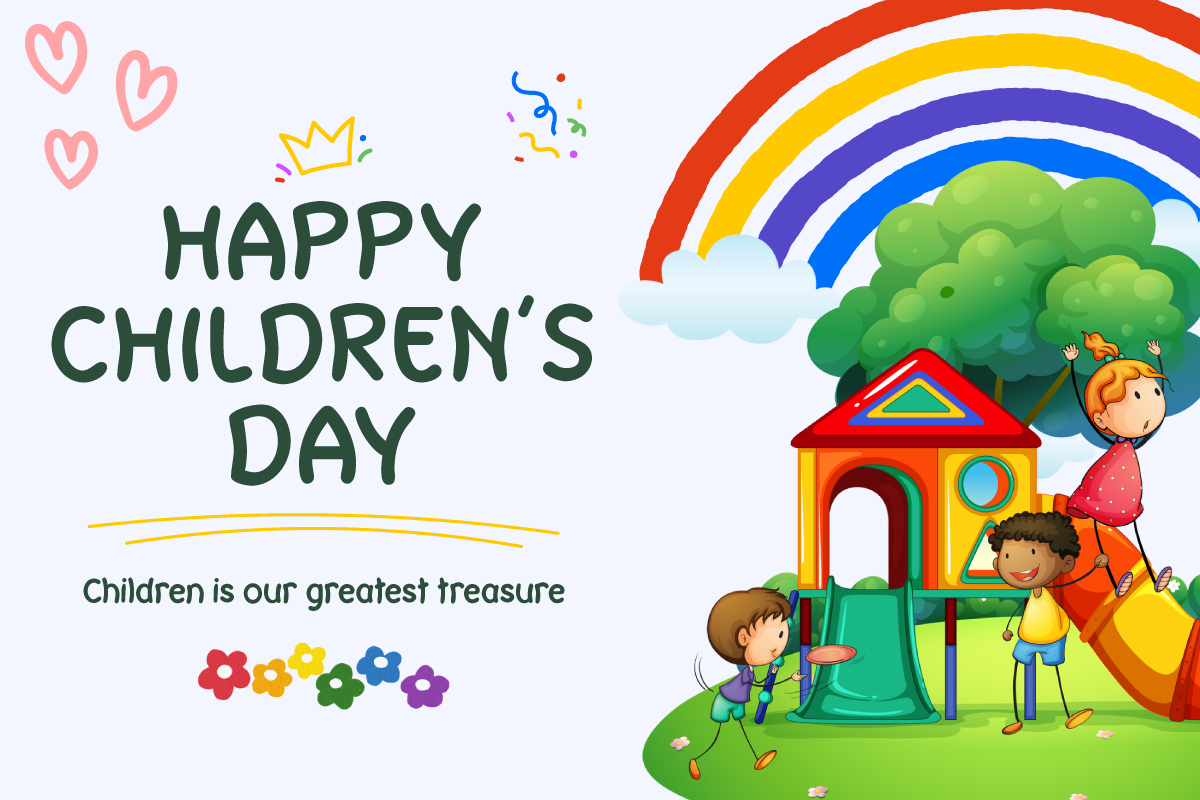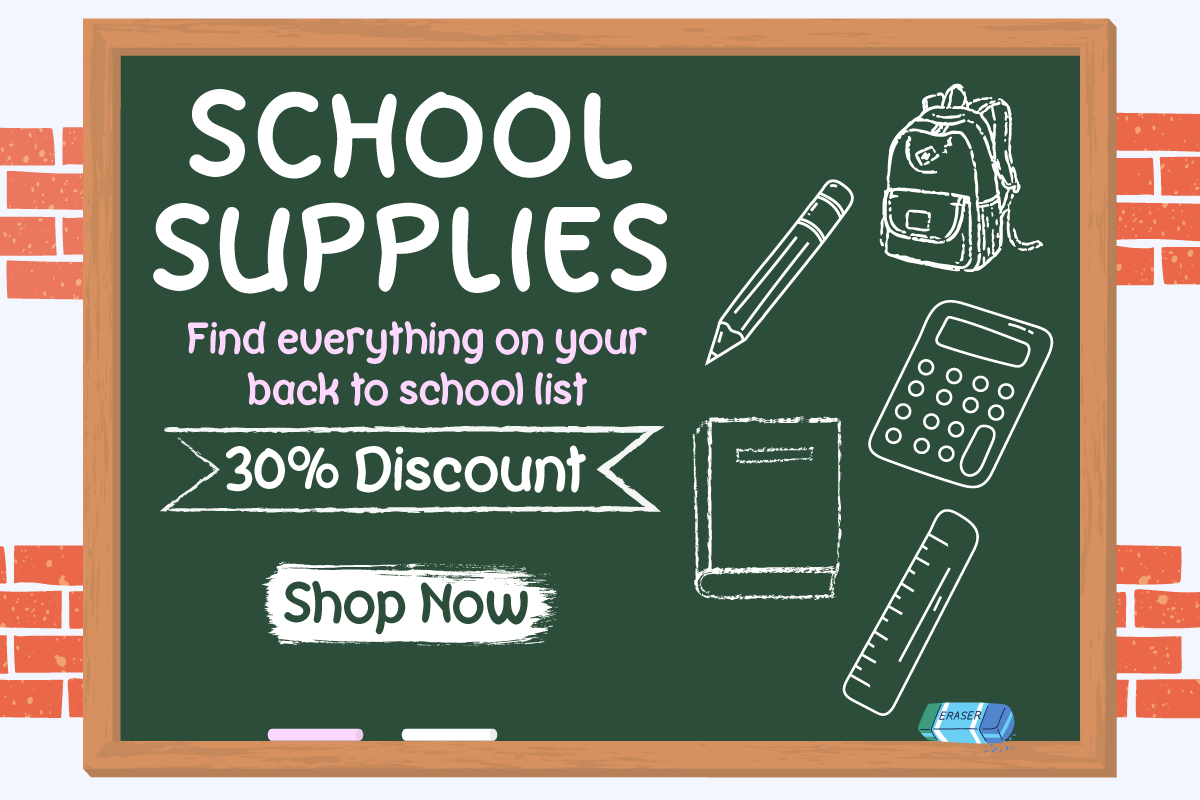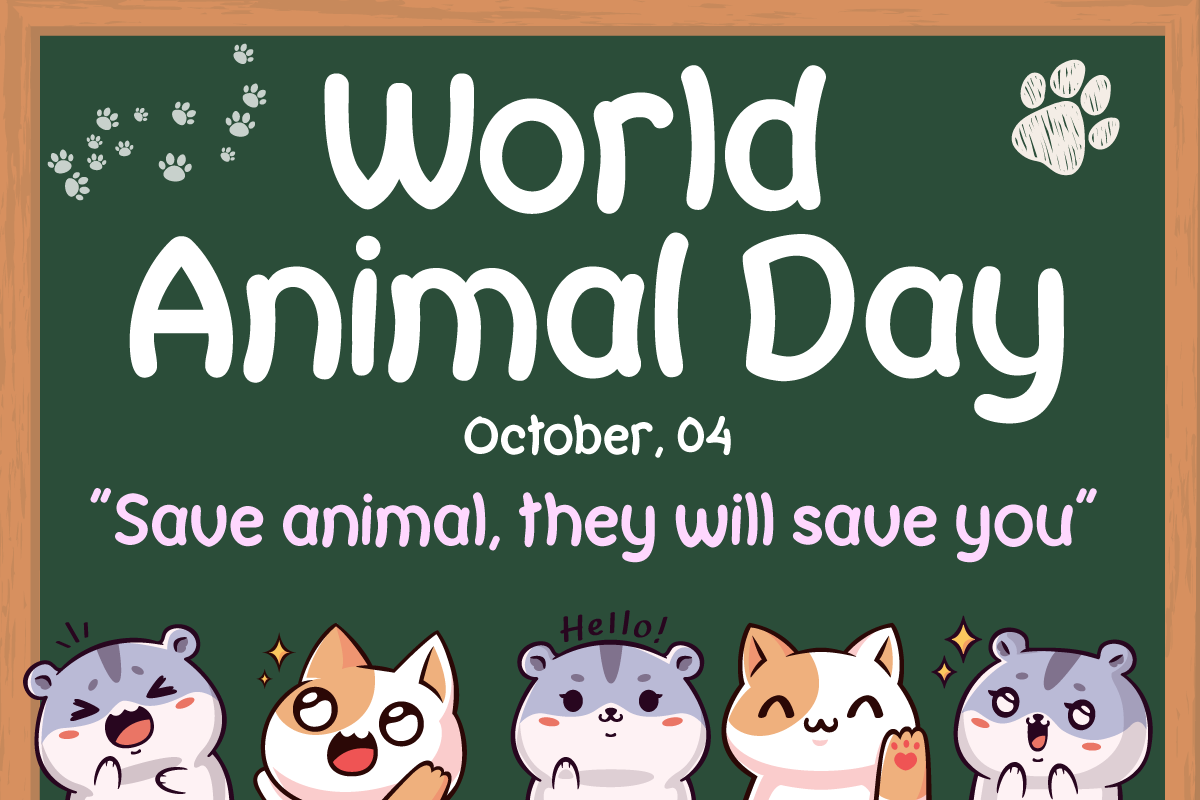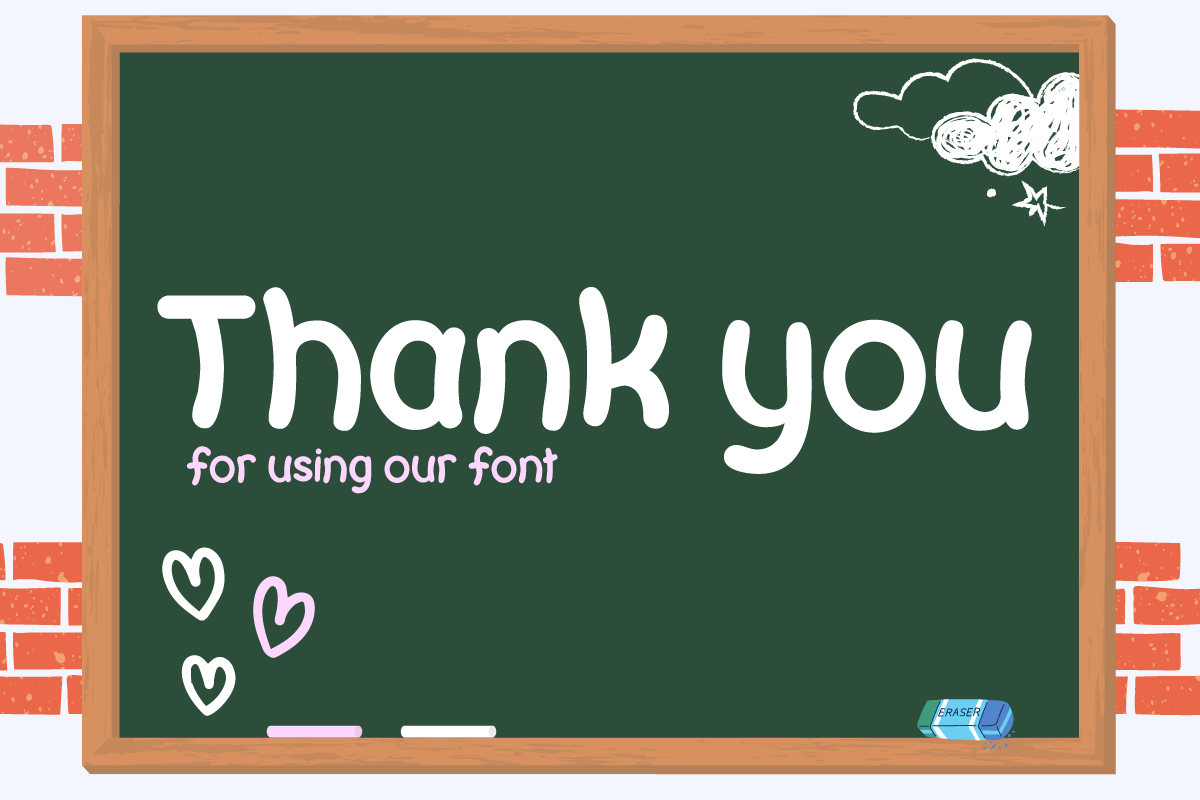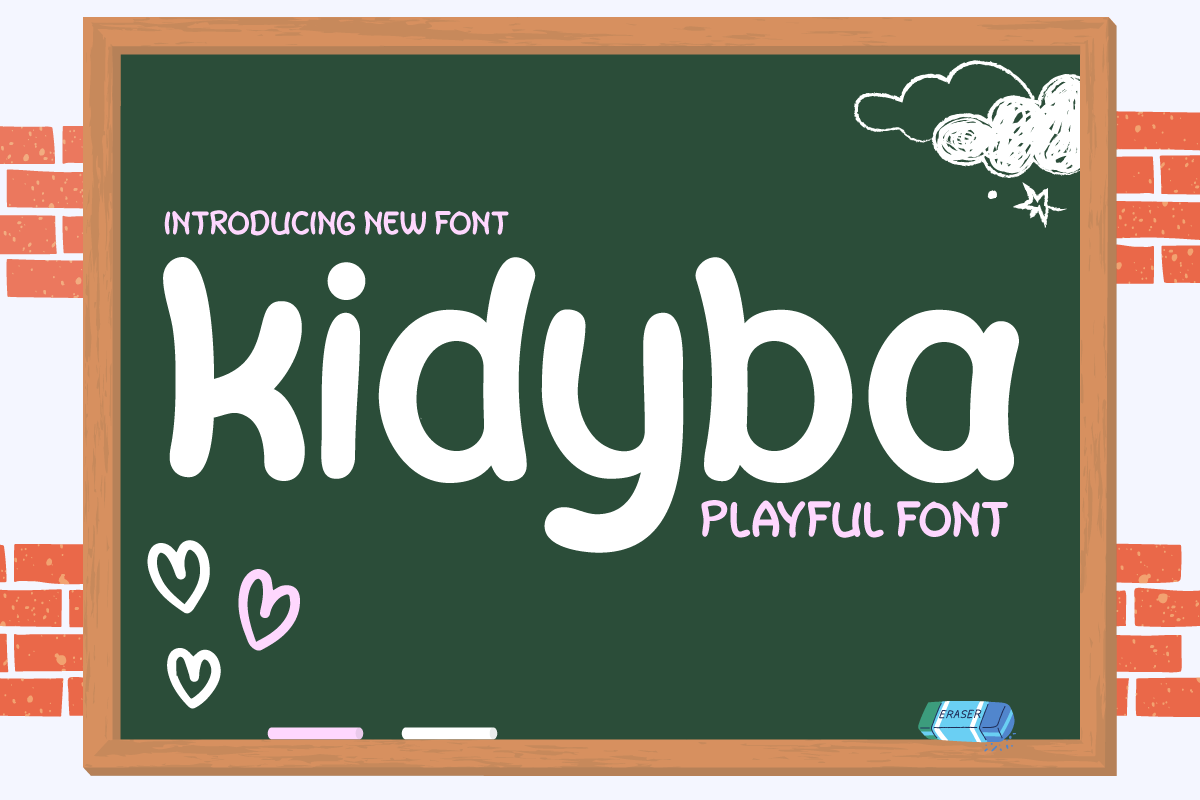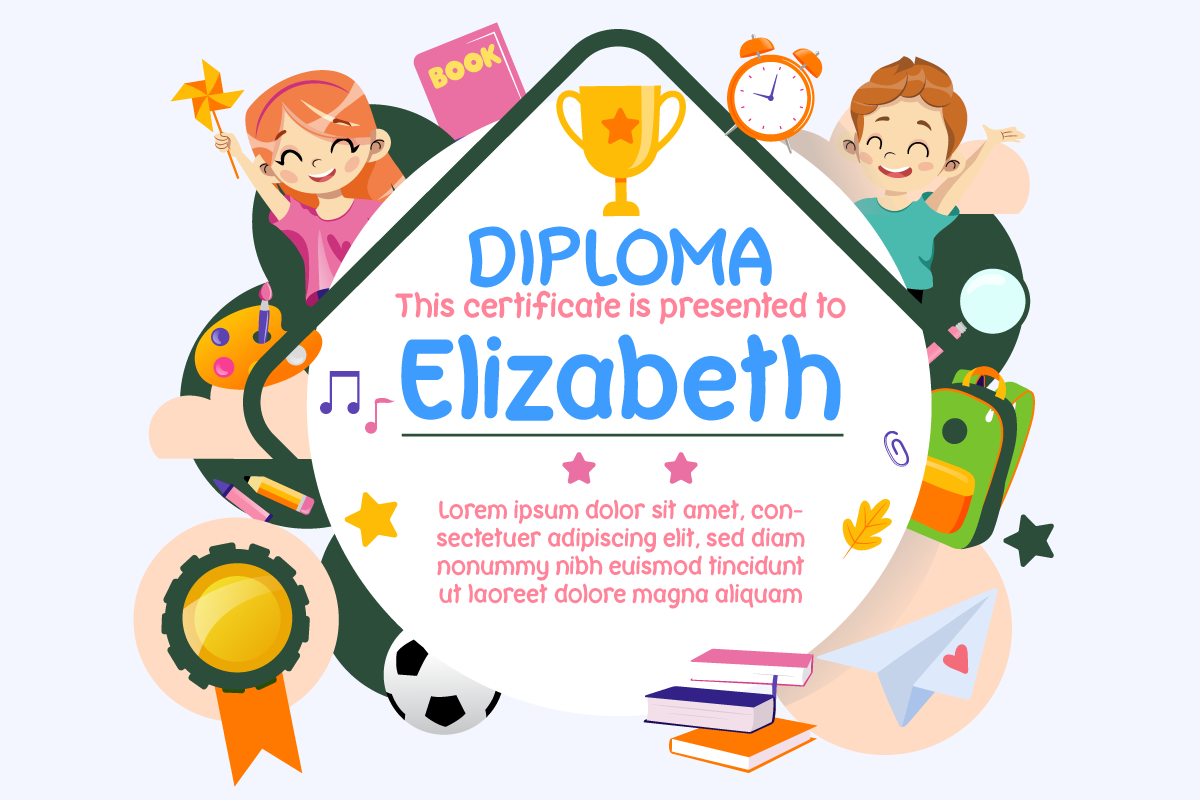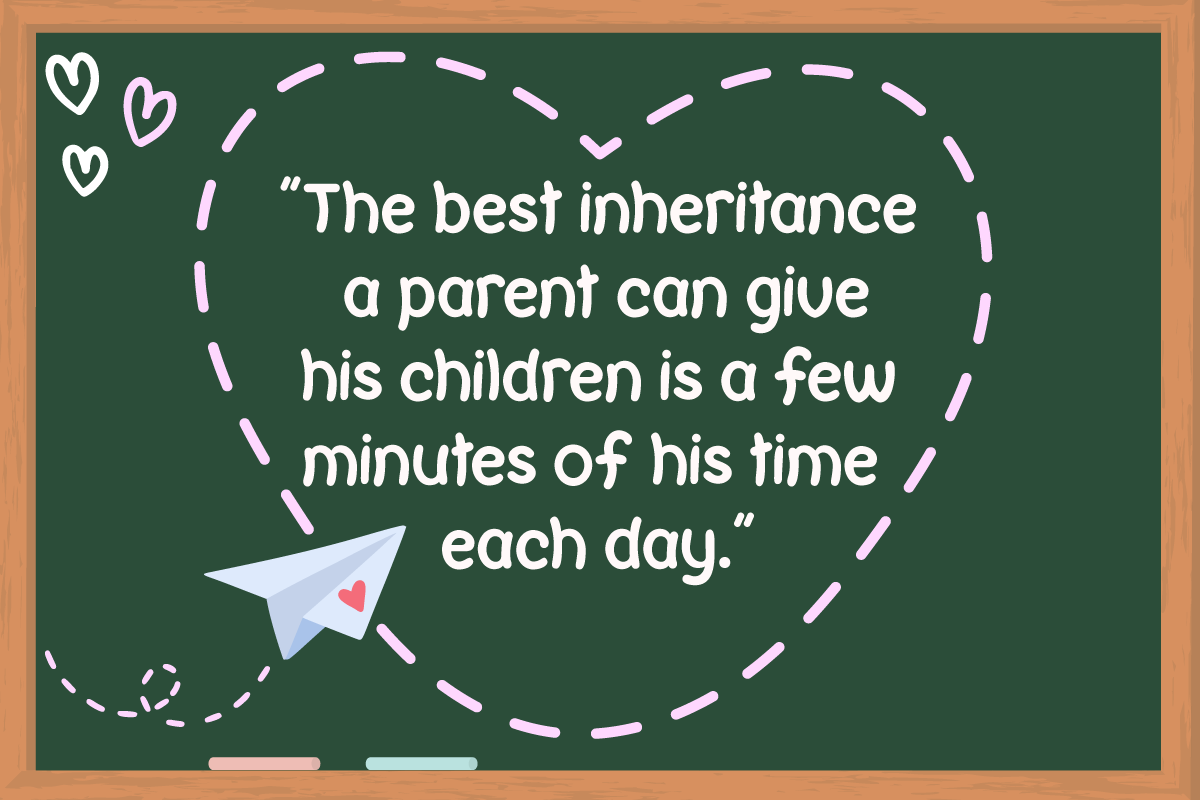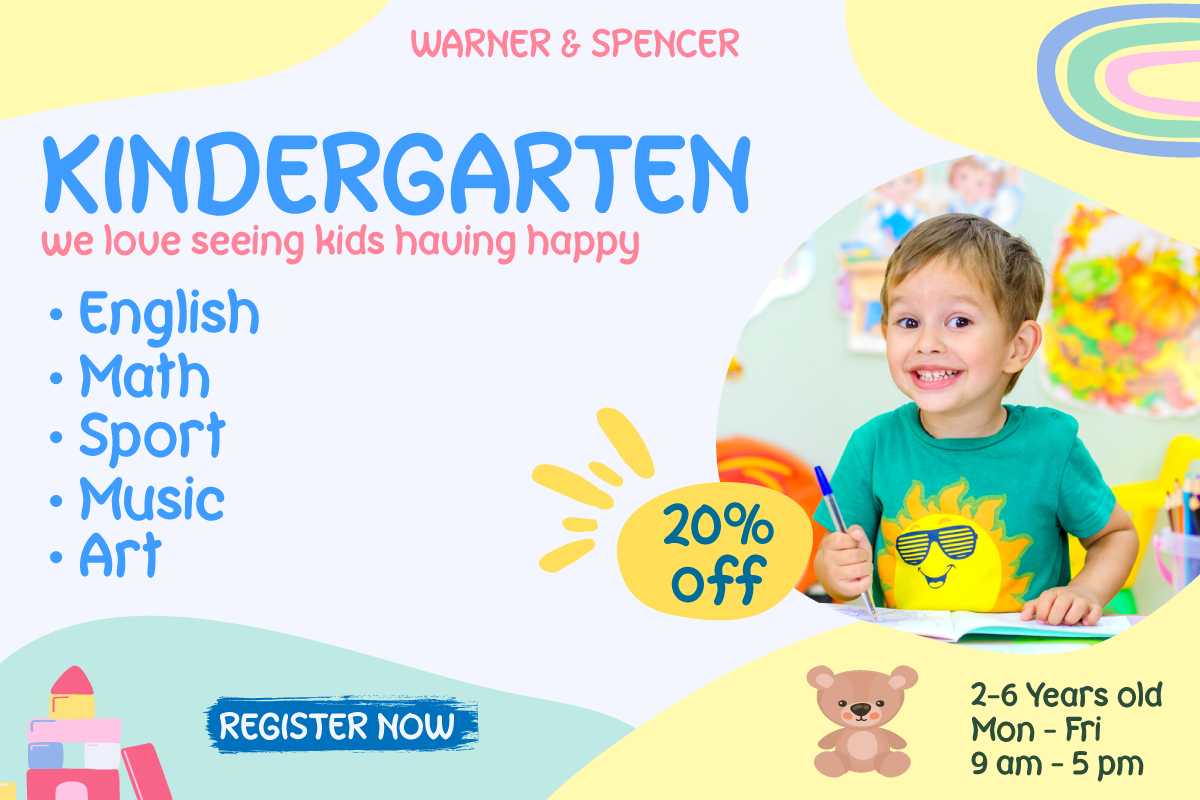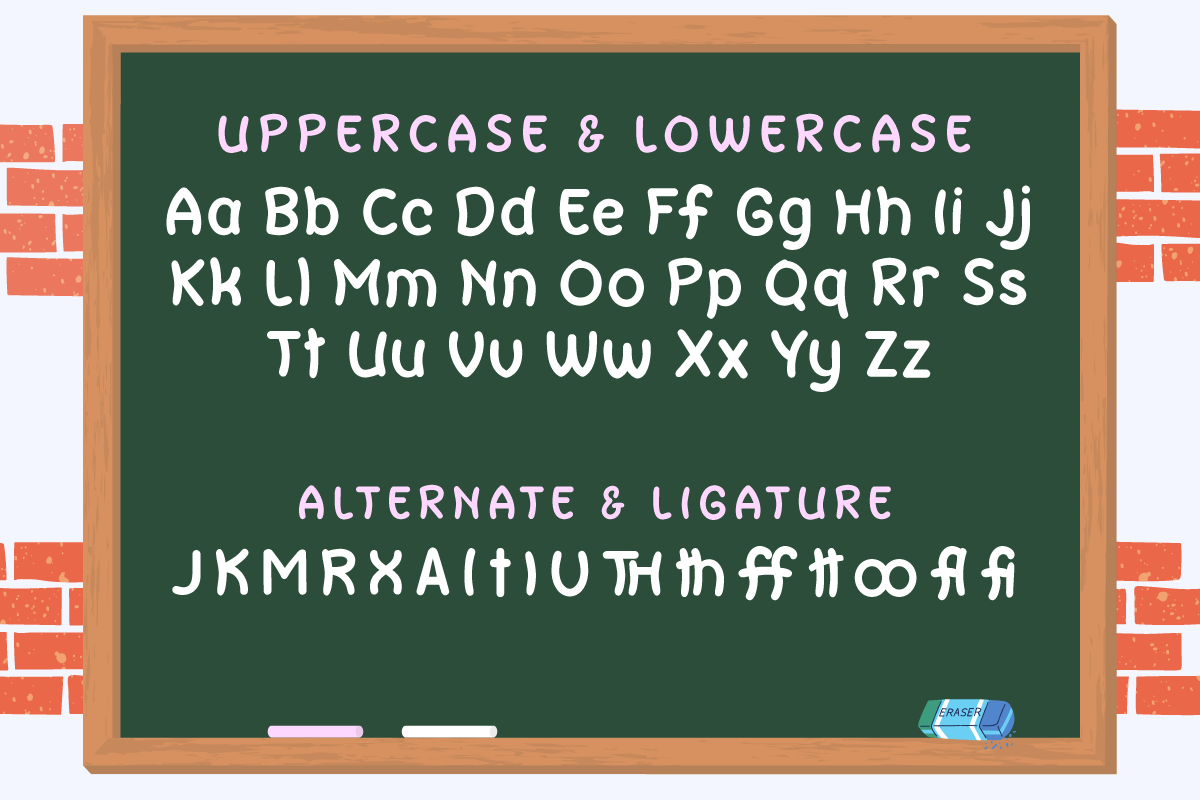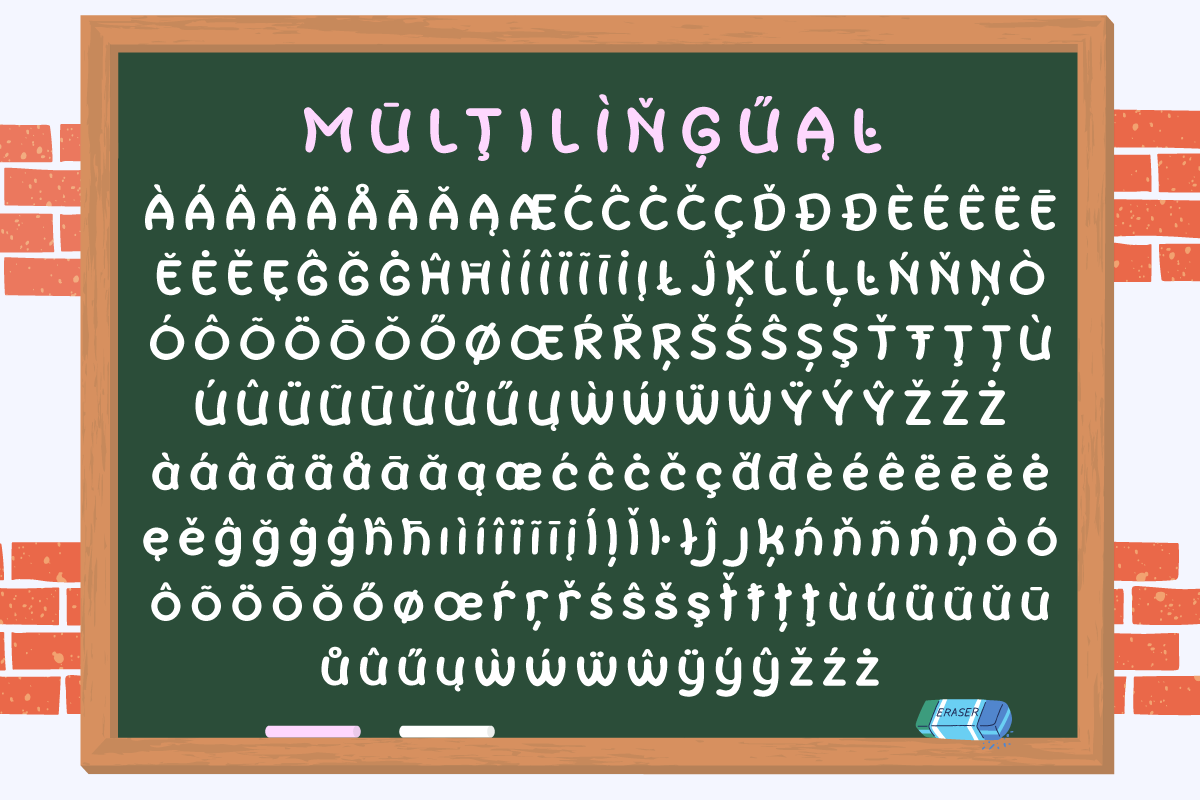
Kidyba | Playful Font Display
Introducing "Kidyba Font" - Where Playful Typography Takes Center Stage!
Unleash your creativity with Kidyba Font, a whimsical display typeface that injects fun and energy into your designs.
Kidyba Font is the perfect choice for projects that require a playful touch. Its charming and lively characters make it ideal for children's books, eye-catching posters, and playful branding that stands out.
With Kidyba Font, your designs will instantly capture the essence of playfulness, drawing your audience in. Whether you're designing a cheerful invitation or a vibrant logo, this font adds a joyful and spirited element to your work.
Elevate your creative projects and let your imagination soar with Kidyba Font. Infuse your designs with a sense of fun and wonder, and watch as they come to life with this delightful typeface. Embrace the playful spirit of Kidyba Font today!
- Alternate, Ligature
- Fonts include Multilingual support